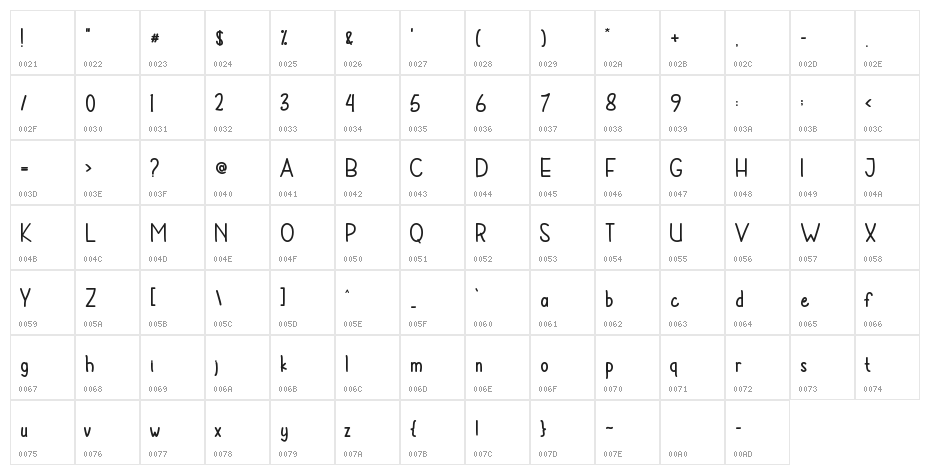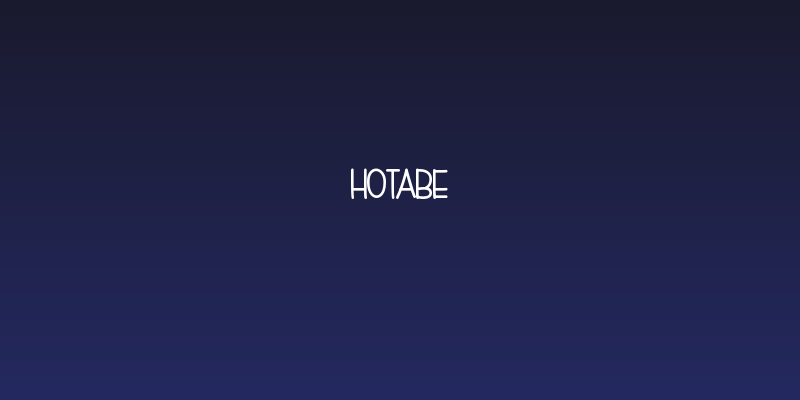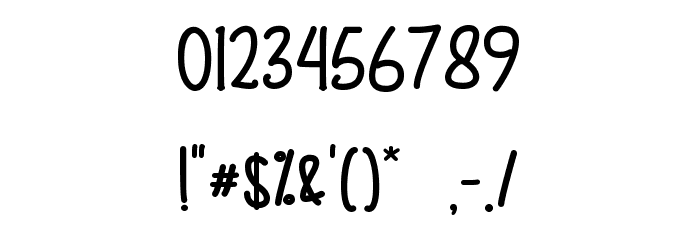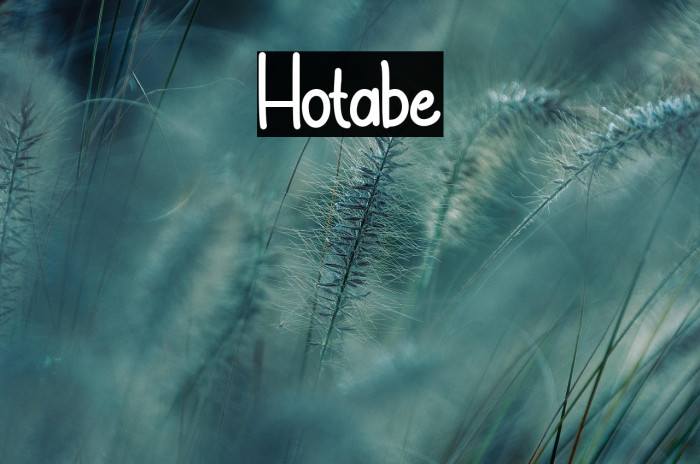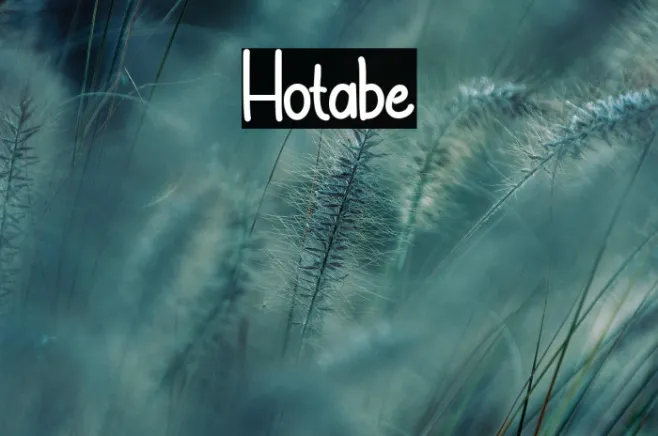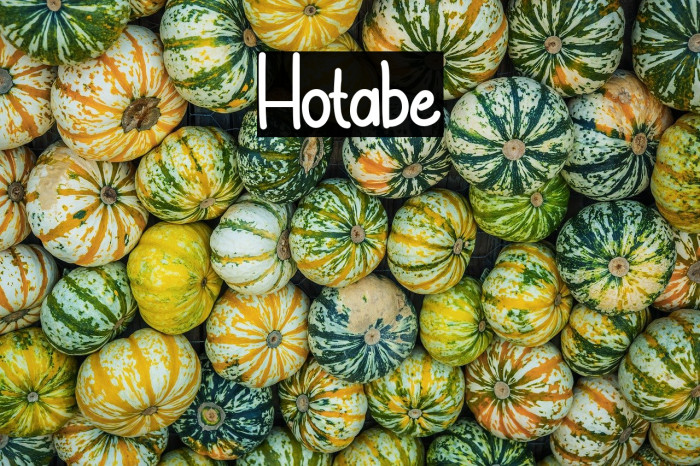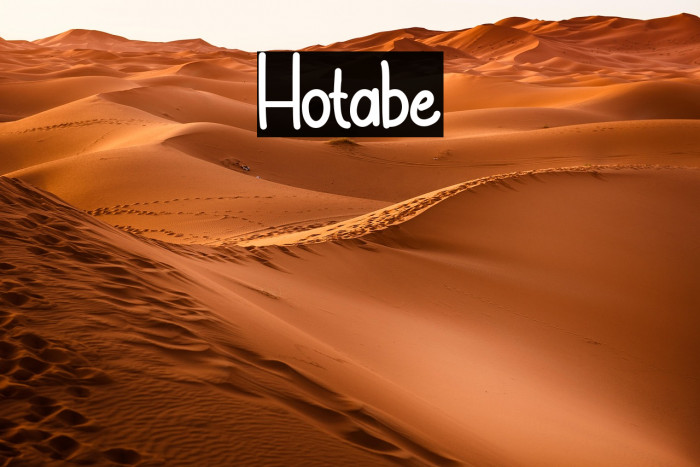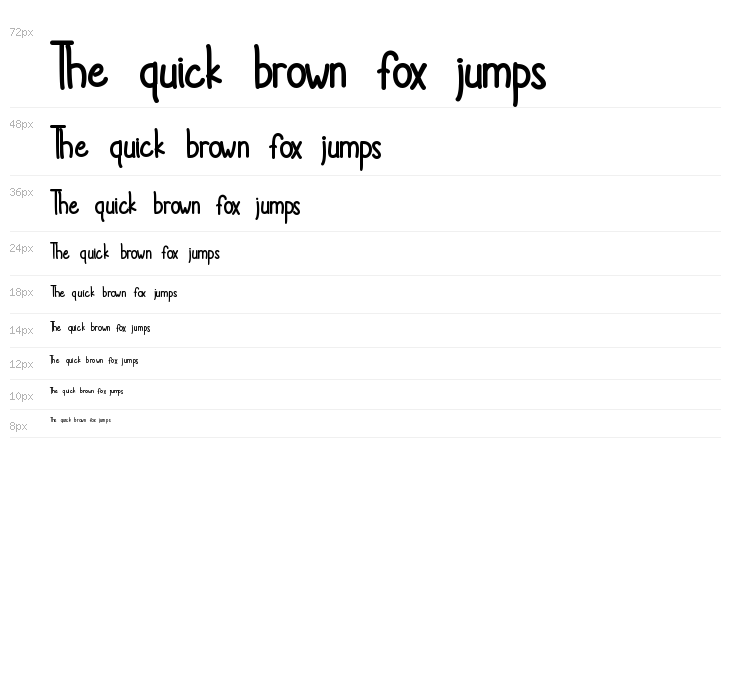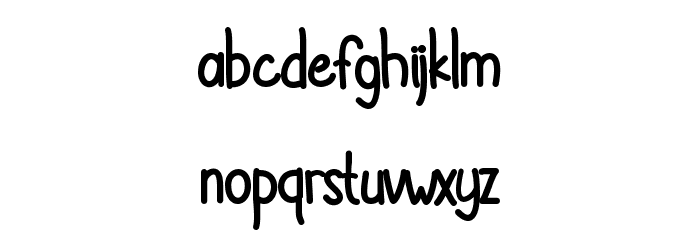
Hotabe Font
Hotabe Description
This font features a playful and informal style, characterized by its handwritten appearance. The letters are slightly irregular, giving it a casual and friendly feel. The strokes are consistent in weight, providing a uniform look across all characters. The uppercase letters are bold and prominent, while the lowercase letters maintain a similar width, ensuring readability. Numbers and special characters are designed to match the overall aesthetic, making them blend seamlessly with the text. This font is ideal for projects that require a personal touch or a relaxed vibe.
| Proposed Projects | Ideal for greeting cards, children's books, personal blogs, and informal branding. |